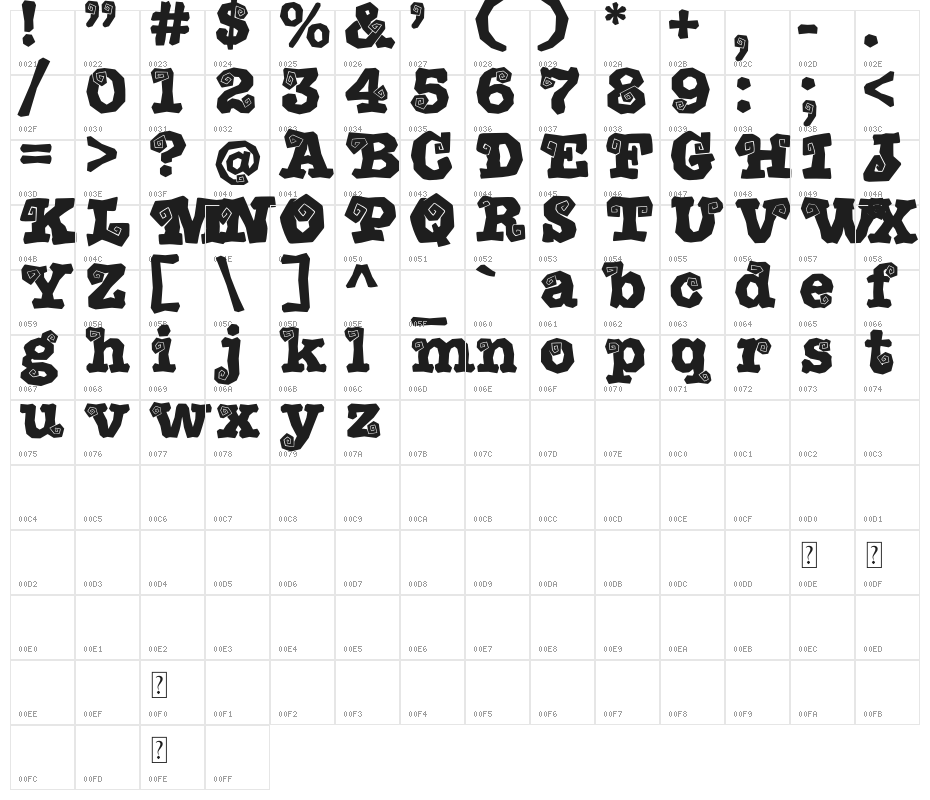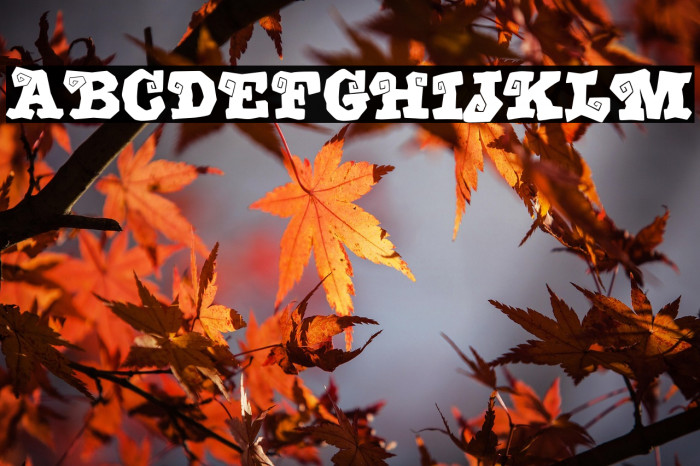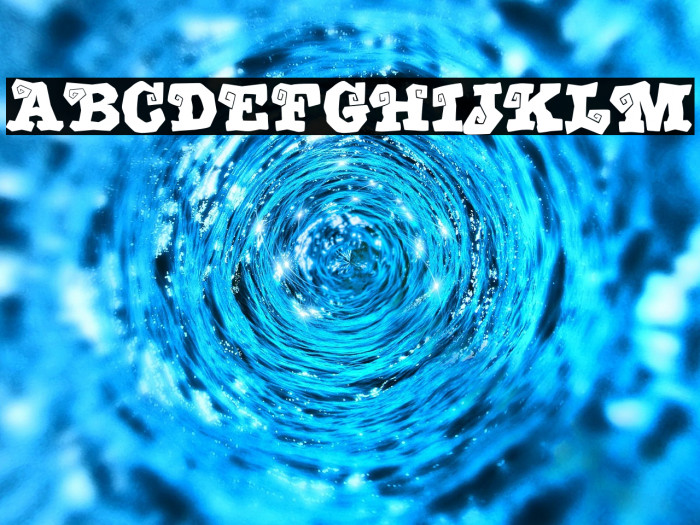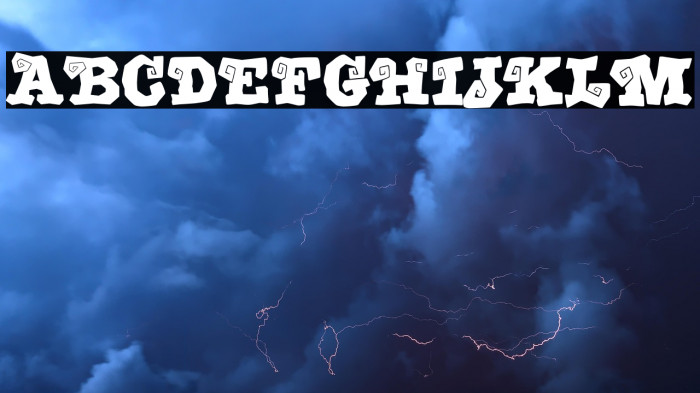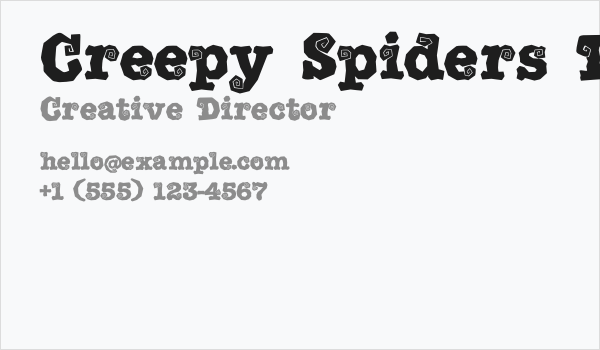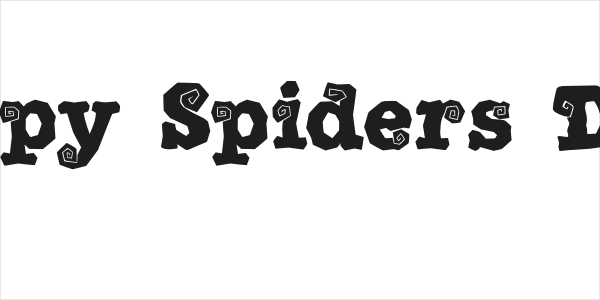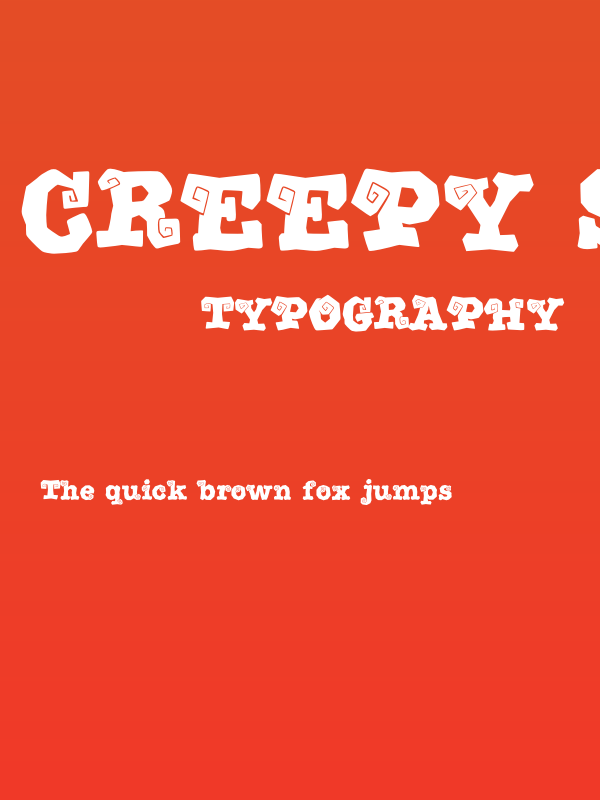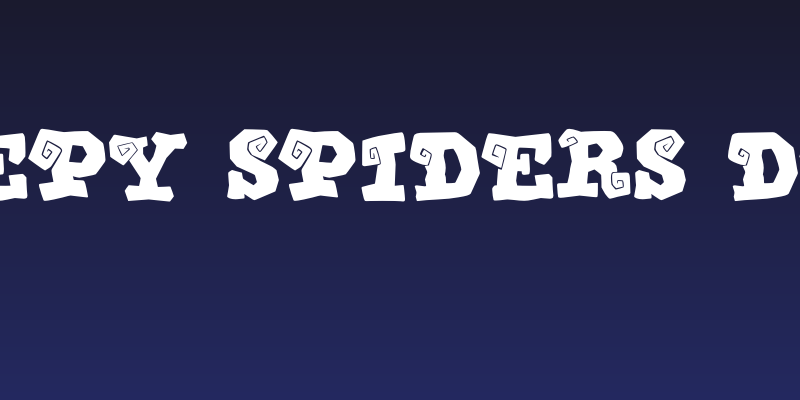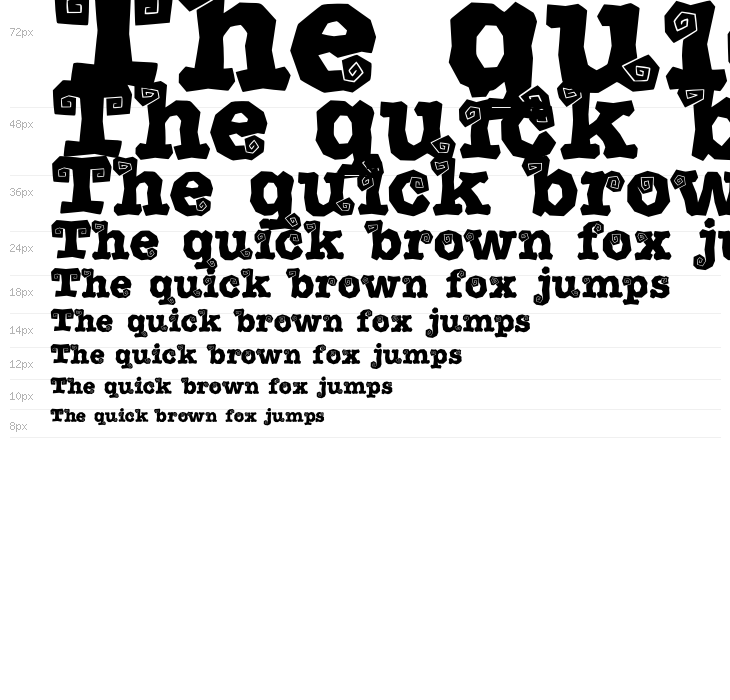
Creepy Spiders Demo Font
Creepy Spiders Demo Description
This font features a playful and spooky design, characterized by its bold and irregular letterforms. Each character is adorned with spiral or swirl elements, adding a whimsical and eerie touch. The font has a hand-drawn appearance, with uneven strokes and quirky details that give it a unique personality. It is highly decorative, making it suitable for thematic projects that require a fun and slightly creepy aesthetic. The overall style is reminiscent of Halloween or fantasy themes, perfect for capturing attention with its distinctive look.
| Proposed Projects | This font is perfect for Halloween-themed posters, party invitations, children's book covers, and any project that requires a playful yet eerie touch. |